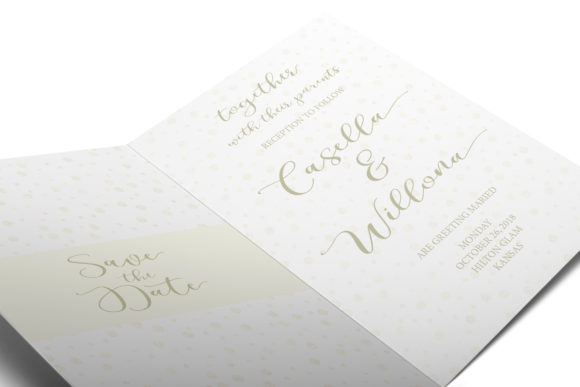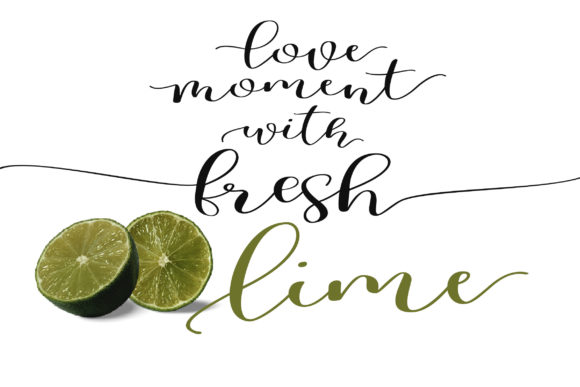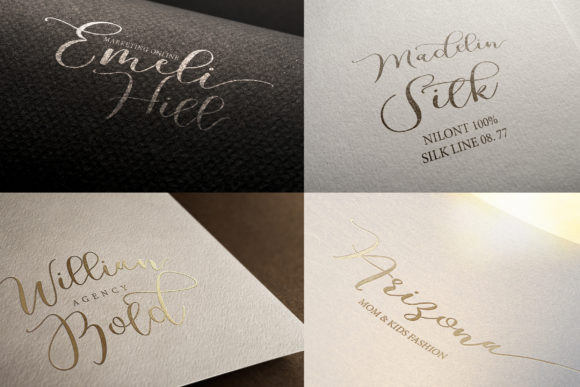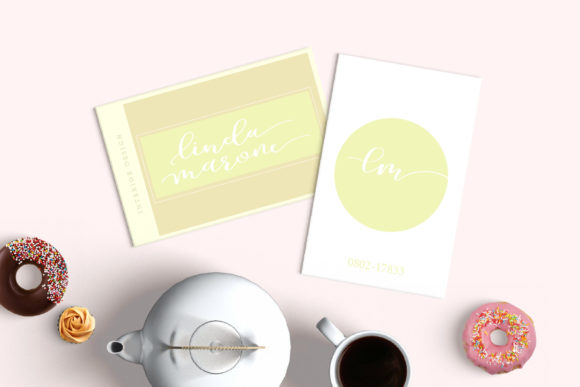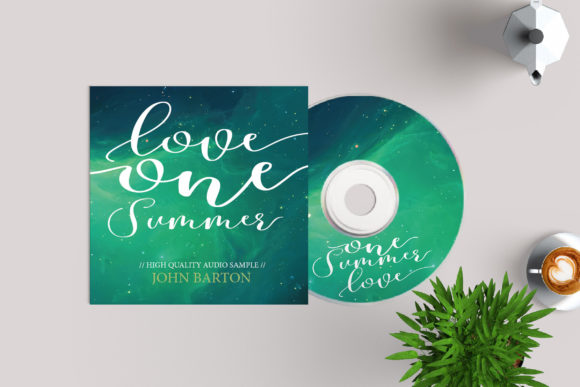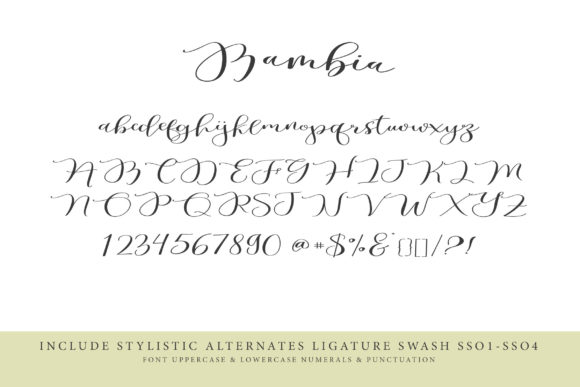
Bambia Calligraphi Font: Elevate Your Designs with Elegance
Are you a designer or crafter looking for a font that exudes elegance and sophistication? Look no further than Bambia Calligraphi Font. This beautiful handwritten font is perfect for adding a touch of luxury to your designs, whether you’re working on wedding materials, branding, blog titles, quotes, invitations, or business cards.
A Unique Combination of Brushes and Ink
Bambia Calligraphi is a unique font that has been created with a combination of brushes and additional ink. This gives the font a distinctive, hand-crafted feel that is sure to impress. The font’s variant is carefully designed to provide a beautiful, flowing script that is perfect for a wide range of design applications.
Ideal for a Variety of Design Projects
So, what can you use Bambia Calligraphi Font for? The possibilities are endless! Here are just a few ideas to get you started:
• Wedding Designs: Use Bambia Calligraphi Font to create stunning wedding invitations, save-the-date cards, and ceremony programs.
• Branding Materials: Add a touch of elegance to your brand with Bambia Calligraphi Font. Use it for logos, business cards, and letterheads.
• Blog Titles: Make your blog titles stand out with Bambia Calligraphi Font. It’s perfect for creating eye-catching headlines and section dividers.
• Quotes: Use Bambia Calligraphi Font to create beautiful quote graphics that are perfect for social media, blogs, or websites.
• Invitations: Whether you’re planning a birthday party, baby shower, or other celebration, Bambia Calligraphi Font is a great choice for creating custom invitations.
• Business Cards: Add a touch of sophistication to your business cards with Bambia Calligraphi Font.
One of the best things about Bambia Calligraphi Font is that it’s PUA (Private Use Area) encoded. This means that you can access all of the glyphs and swashes with ease, giving you even more creative freedom. With PUA encoding, you can:
• Access a wide range of alternative characters and swashes
• Easily create beautiful, flowing scripts
• Customize your designs with a variety of glyphs and ornaments
Why Choose Bambia Calligraphi Font?
So, why should you choose Bambia Calligraphi Font for your design projects? Here are just a few reasons:
• Unique and Elegant: Bambia Calligraphi Font is a one-of-a-kind font that adds a touch of elegance and sophistication to any design.
• Versatile: This font is perfect for a wide range of design applications, from wedding designs to branding materials.
• Easy to Use: With PUA encoding, you can easily access all of the glyphs and swashes, making it simple to create beautiful designs.
• High-Quality: Bambia Calligraphi Font is a high-quality font that is designed to provide beautiful, crisp lines and elegant curves.
In conclusion, Bambia Calligraphi Font is a beautiful handwritten font that is perfect for designers and crafters looking to add a touch of elegance and sophistication to their designs. With its unique combination of brushes and ink, PUA encoding, and versatility, this font is sure to become a go-to choice for a wide range of design projects. Whether you’re working on wedding designs, branding materials, or blog titles, Bambia Calligraphi Font is a great choice. So why wait? Download Bambia Calligraphi Font today and start creating stunning designs that will leave a lasting impression!